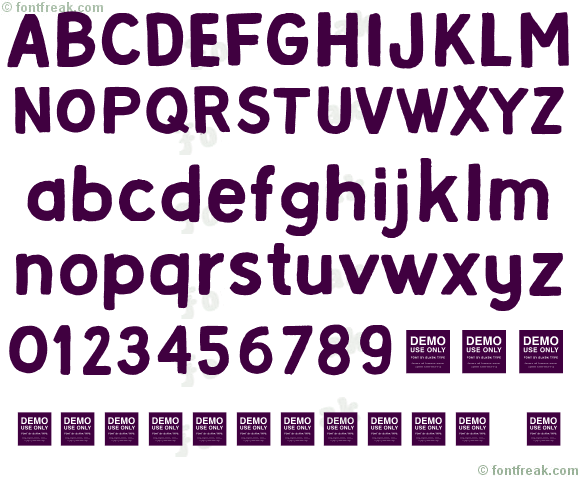
Alpha Beta
About Alpha Beta
The Alpha Beta font by BLKBK Fonts is a playful and contemporary display typeface that combines a bold presence with a unique character. This sans-serif font features rounded edges and a slightly irregular stroke weight, creating a friendly and approachable aesthetic. The design emphasizes clear letterforms with ample spacing, making it easy to read while maintaining a distinctive flair. With its captivating visual style, Alpha Beta is perfect for various creative applications.
This font excels in projects that require a touch of whimsy and charm. It's ideally suited for children's book covers, where its playful design can engage young readers. Additionally, Alpha Beta works wonderfully for branding purposes, particularly for businesses in the creative industry, such as art studios or toy stores. Its unique character makes it a great choice for posters and flyers promoting events like festivals or community gatherings. Restaurant menus can also benefit from this font, as it adds a friendly touch that can enhance the dining experience.
What sets the Alpha Beta font apart is its ability to convey a sense of fun while remaining highly legible. Its unique characteristics and versatility make it a standout choice for various design needs, ensuring that your projects not only capture attention but also resonate with your audience. Embrace the creativity and charm of Alpha Beta for your next design venture.